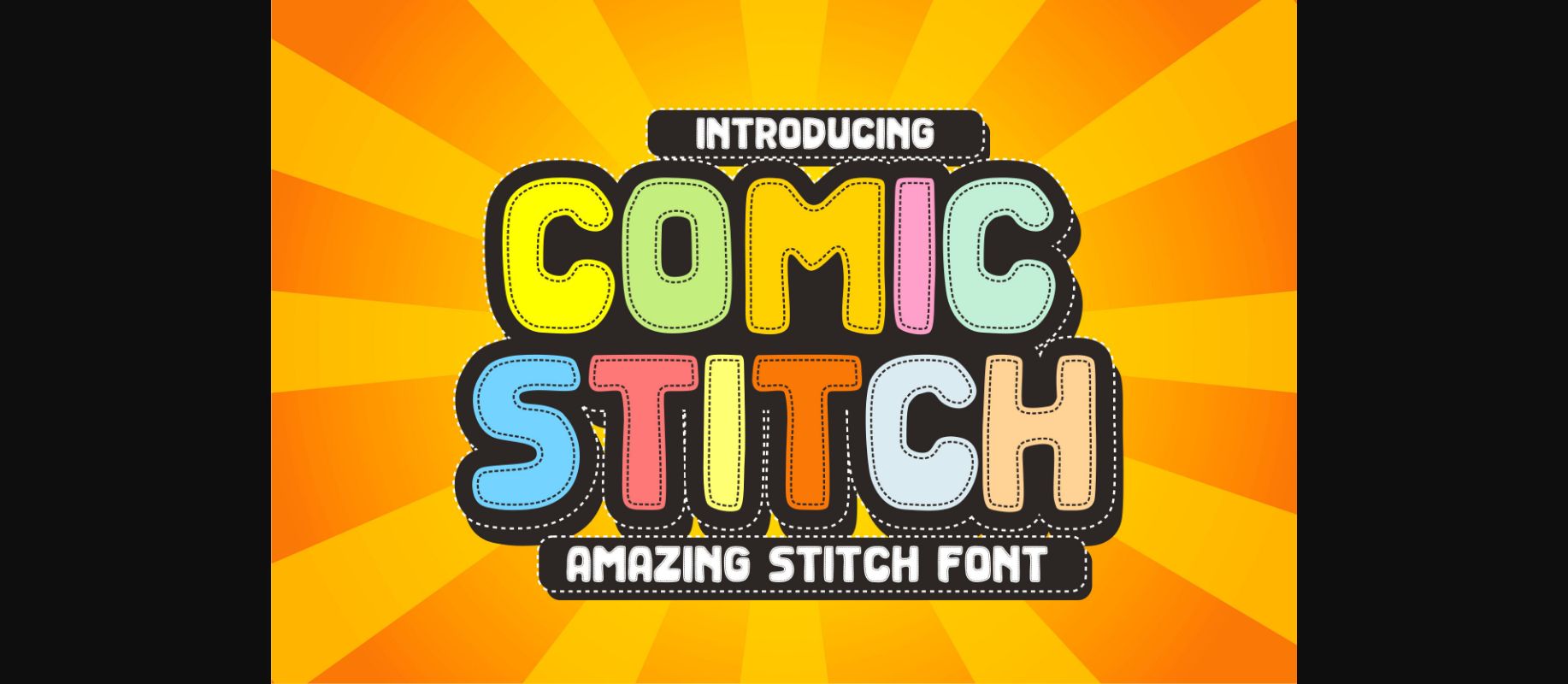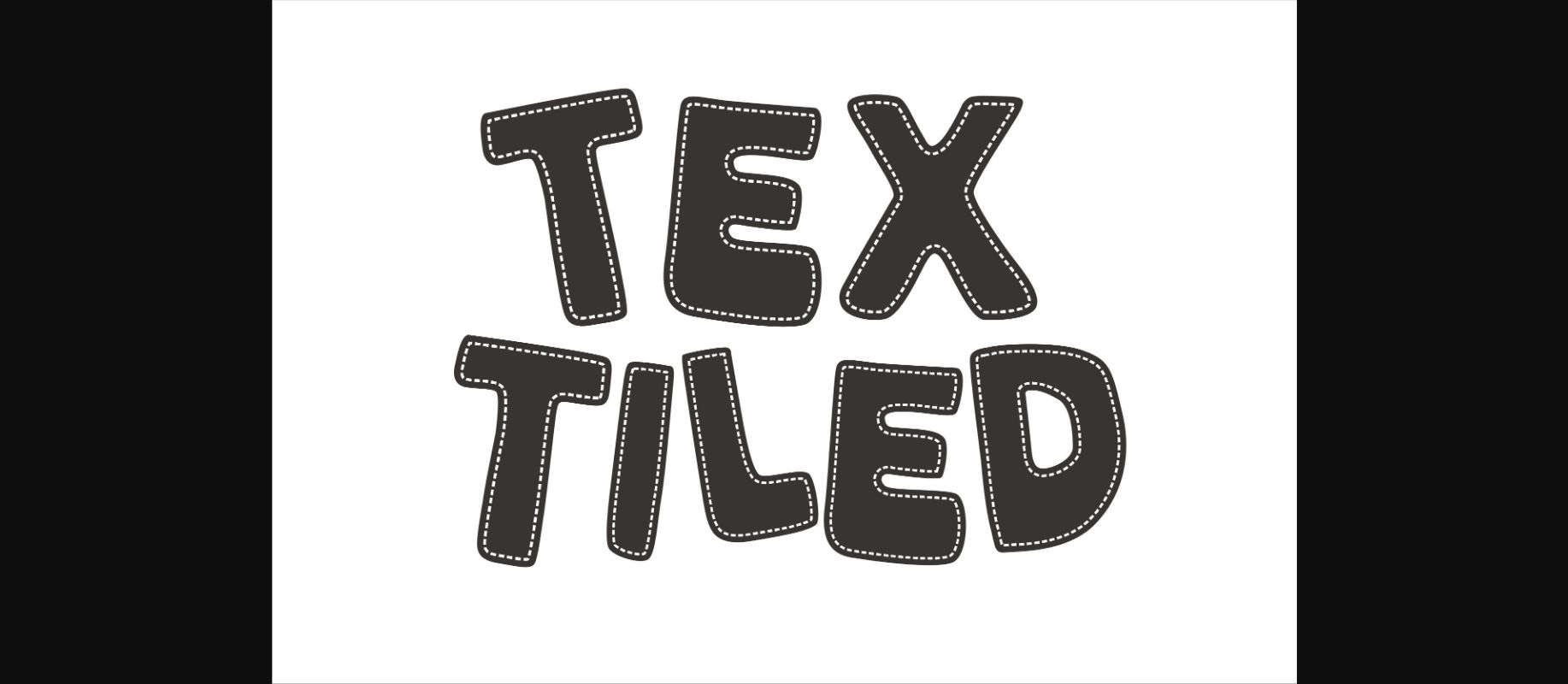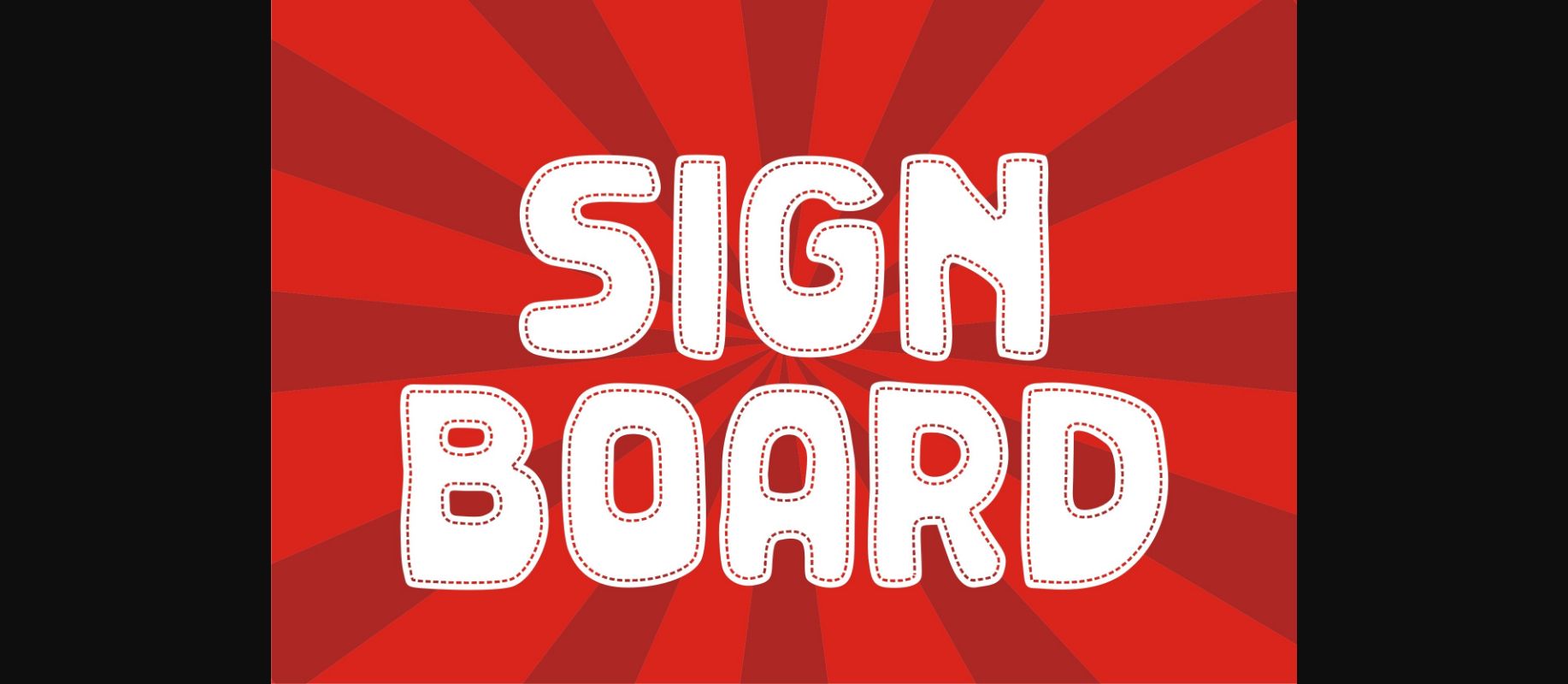
About Comic Stitch Font
Comic Stitch is a decorative font with a sewing texture theme, this font is very attractive with a fun and relaxed concept, this font is very suitable for designing comics, books, crafts and designs for children.